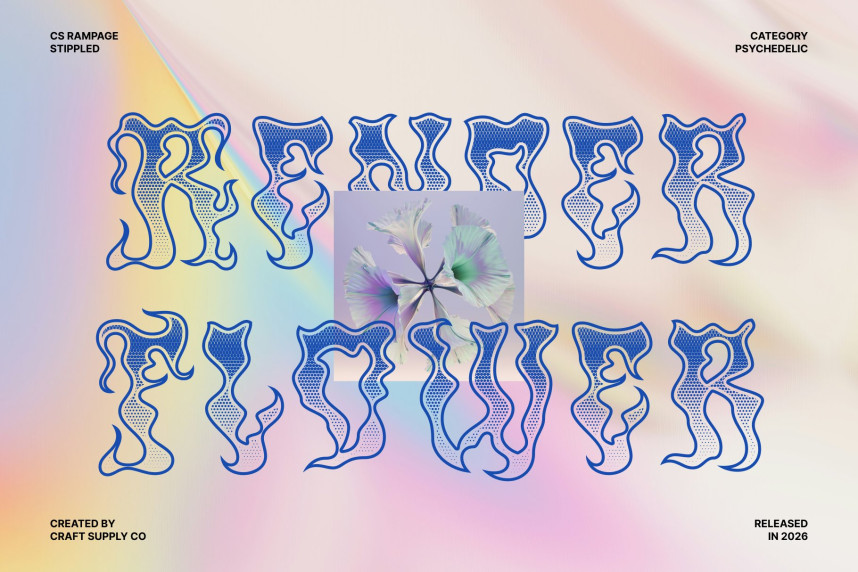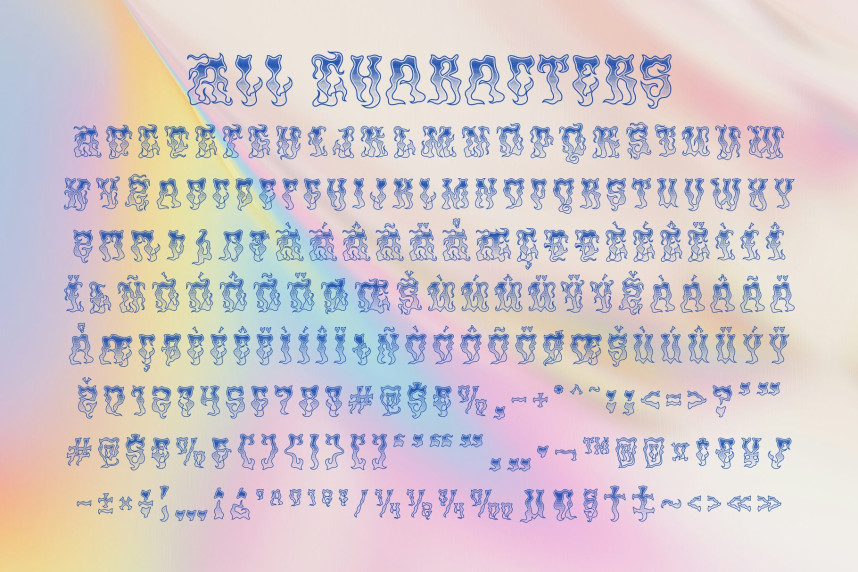
CS Rampage Stippled Font
CS Rampage Stippled Font – Psychedelic Font of Unfiltered Expression
Psychedelic Display Font with Funky Energy
This is a modern psychedelic display font that embraces unrestrained creativity through twisted forms, unconventional curves, and dynamic, flowing compositions. Enhanced with a stippled texture, it carries a raw, handcrafted quality that amplifies its expressive and experimental nature. The result is a typeface that feels energetic, chaotic, and visually alive.